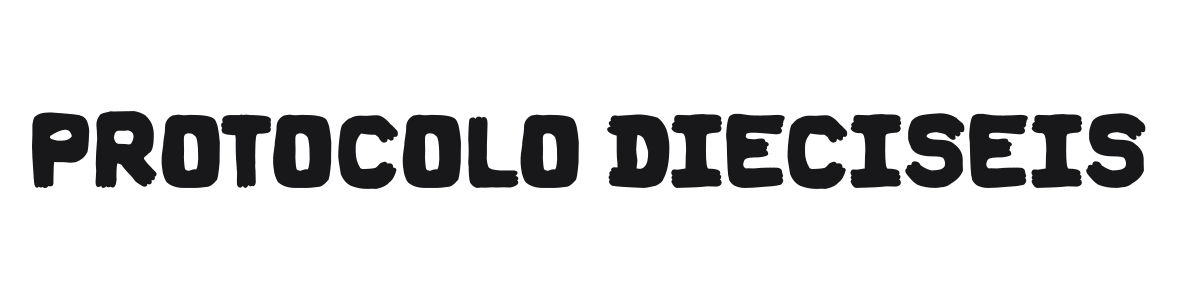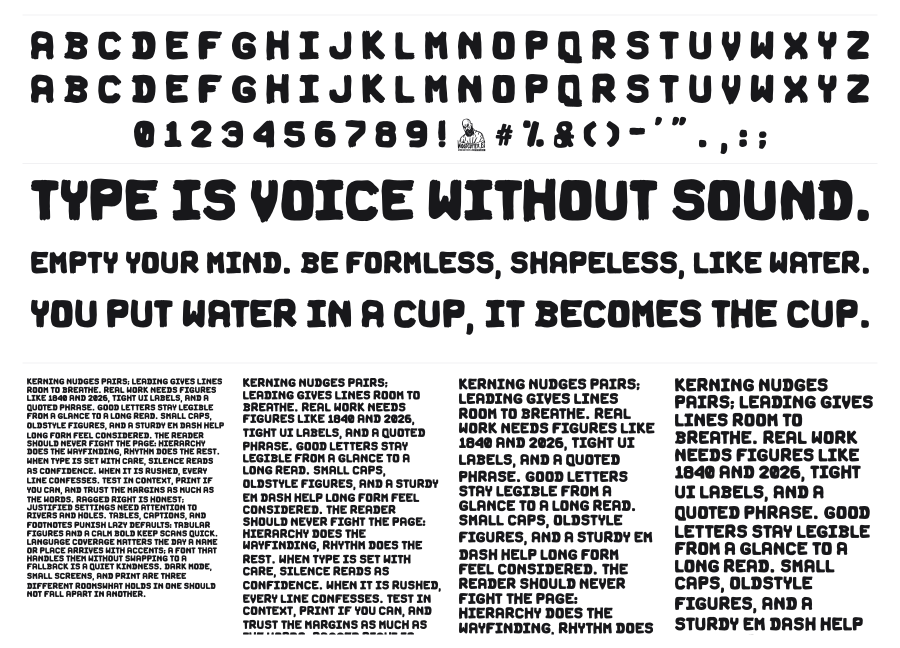
Protocolo Dieciseis
Protocolo Dieciseis is a heavy, distressed display font from Woodcutter Manero with thick rounded characters and rough, hand-inked edges. The bold, chunky forms carry a raw energy that sits between street signage and fanzine lettering. It commands attention at large sizes and works well anywhere that needs attitude.